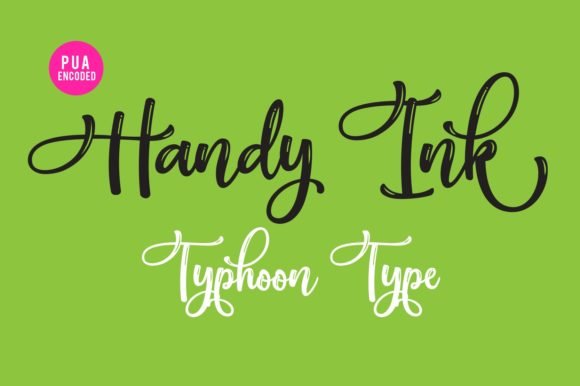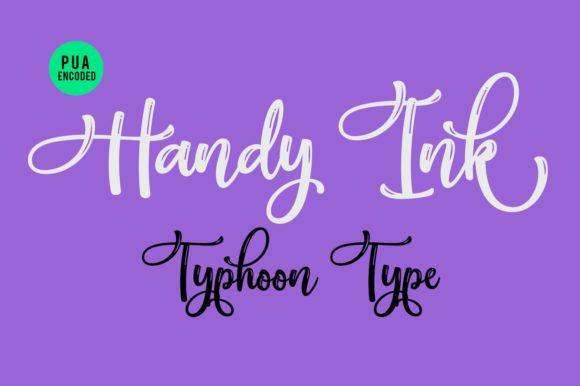
Get Ready to Add a Touch of Whimsy to Your Designs
Have you ever sat in front of your computer, staring at a blank screen, trying to come up with the perfect design concept? The cursor blinks away, taunting you to create something amazing. And then, it hits you – a spark of inspiration that sets your creativity ablaze. For designers like you, finding that perfect font can be the difference between a good design and a great one.
Enter the Handy Ink Font, a fresh and funky handwritten font that’s sure to add an elegant touch to your designs. This unique font is perfect for designers who want to add a personal touch to their work without sacrificing professionalism. With its versatility and charm, the Handy Ink Font is a valuable addition to any designer’s toolkit, allowing you to create designs that truly stand out.
Key Features of Handy Ink Font
- Font Style: A unique, handwritten font designed to resemble ink strokes, perfect for adding a personal touch to digital and print materials.
- Character Set: Includes a comprehensive set of characters, including Latin, Cyrillic, and Greek alphabets, as well as punctuation and special characters.
Handy Ink Font Review
First off, let me say that I was really excited to try out the Handy Ink Font. I’ve seen it popping up in a lot of trendy designs lately, and I was curious to see what all the fuss was about.
- Unique Character: The Handy Ink Font has a very distinct, hand-crafted feel to it. I love how it adds a touch of personality to any design.
- Legibility: Despite its playful look, the font is actually very easy to read. I was impressed by how well it held up at smaller font sizes.
- Limited Glyphs: While the font is perfect for short text snippets, I found that it falls short when it comes to longer blocks of text. The limited glyph set can make it difficult to read.
- Not Ideal for Body Text: As much as I love the font’s unique look, I wouldn’t recommend using it for large blocks of body text. It’s better suited for headings, titles, and other display text.
Overall, I think the Handy Ink Font is a great addition to any designer’s toolkit. While it may have some limitations, its unique character and legibility make it a great choice for the right projects.
For optimal results, use Handy Ink Font in conjunction with bold or italic styles to add emphasis to your text. You can also use it in combination with other fonts to create a unique and visually appealing design.
Handy Ink Font is ideal for use in:
- Graphic designs and branding materials
- Infographics and data visualizations
Alternatives to Handy Ink Font for Designers
Playfair Display is a luxurious and elegant script font, ideal for creating a high-end and sophisticated look. It’s perfect for use in logos, headings, and other text elements that require a touch of sophistication.
Comparison to Handy Ink Font: While both fonts have a similar elegant feel, Playfair Display is more refined and luxurious, making it a better choice for high-end designs. Handy Ink Font, on the other hand, has a more rustic and vintage feel.
Great Vibes is a modern and stylish script font, perfect for creating a fun and energetic vibe. It’s ideal for use in logos, headings, and other text elements that require a playful touch.
Comparison to Handy Ink Font: While both fonts have a similar playful feel, Great Vibes is more modern and energetic, making it a better choice for designs that require a youthful and vibrant atmosphere. Handy Ink Font, on the other hand, has a more laid-back and vintage feel.
Q: Does Handy Ink Font support multilingual characters?
Yes, the Handy Ink Font includes a comprehensive character set that supports Latin, Cyrillic, and Greek alphabets, as well as various punctuation and symbol characters. It also includes support for accented characters and diacritical marks.